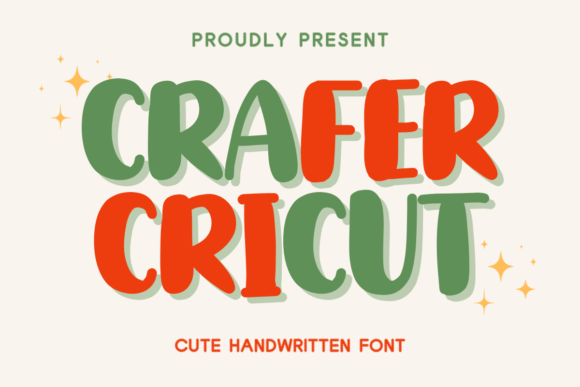
Introducing Crafer Cricut Font - the ultimate choice for those seeking the best font to showcase and sell their delectable food creations. Created by the innovative minds at Minimalist Eyes, this font boasts a delightful combination of uniqueness and cuteness, guaranteed to capture the hearts of your audience.
Embodying bold and minimalist shapes, Crafer Cricut Font exudes a modern and elegant style that effortlessly elevates any design it graces. This font is more than just an ordinary typeface; it is a statement that speaks volumes about your brand's creativity and attention to detail.
Whether you're printing menus, designing captivating book covers, or crafting eye-catching titles and headlines, Crafer Cricut Font is the perfect companion for all your creative endeavors. Its versatility knows no bounds, making it a go-to choice for t-shirt designs, captivating photography layouts, stunning decorations, and captivating branding materials.
What sets Crafer Cricut Font apart is its ability to evoke emotions and create a strong connection with your target audience. With each curve and stroke, this font captures the essence of your food, transforming words into delectable visual treats. It entices taste buds, ignites cravings, and leaves a lasting impression on anyone who lays eyes on it.
Imagine the power of Crafer Cricut Font in showcasing your restaurant's mouthwatering dishes. Its captivating presence on menus and signage will entice customers to indulge in your culinary offerings. With this font, your brand becomes synonymous with irresistible flavors and unforgettable dining experiences.
Not only does Crafer Cricut Font elevate your food presentation, but it also adds a touch of elegance to your brand's identity. Its clean and refined aesthetics make it the perfect choice for logos, creating a lasting impression on potential customers. Craft a brand that exudes sophistication, leaving a mark in the minds of those who encounter it.
In a world where first impressions matter, Crafer Cricut Font ensures that your creations stand out from the crowd. Its unique style and captivating charm guarantee that your products will leave a lasting impact on customers, compelling them to choose you over competitors.